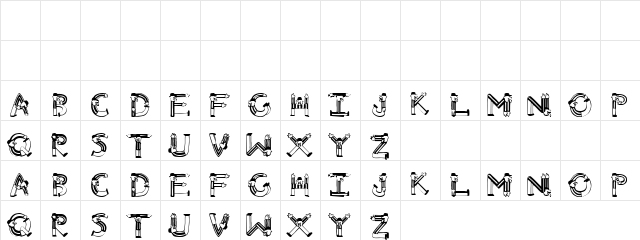
Exerciso Regular
Design Context for Exerciso Typeface
Exerciso is a composed and adaptable typeface that performs quietly and consistently across a wide range of design contexts.